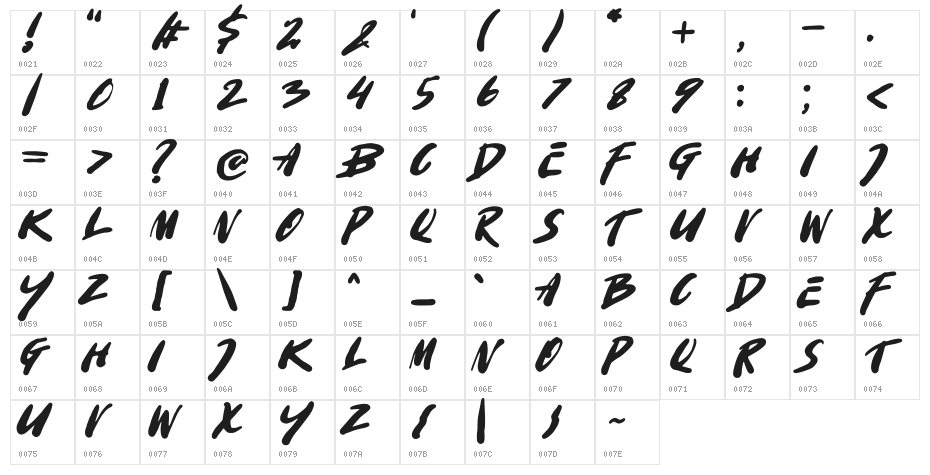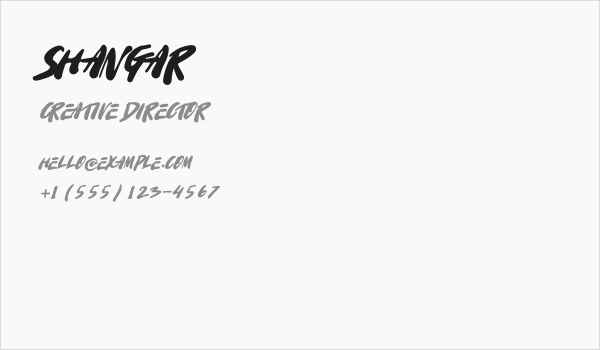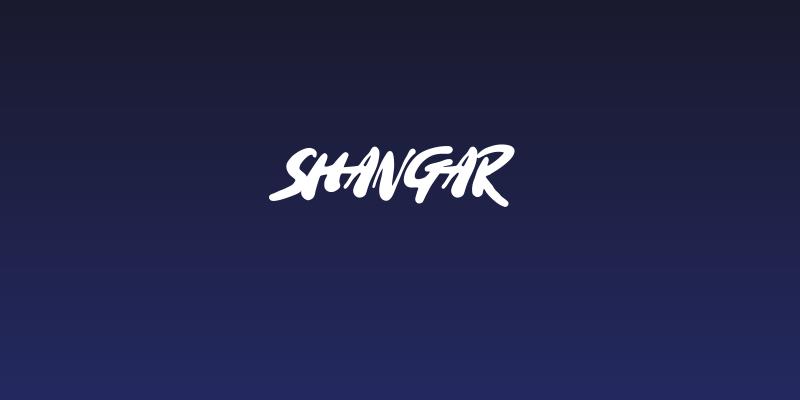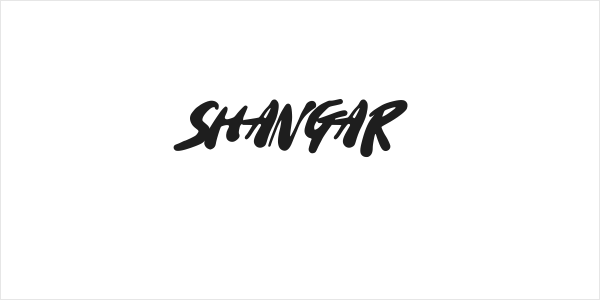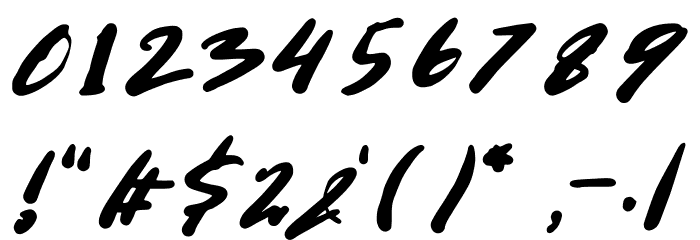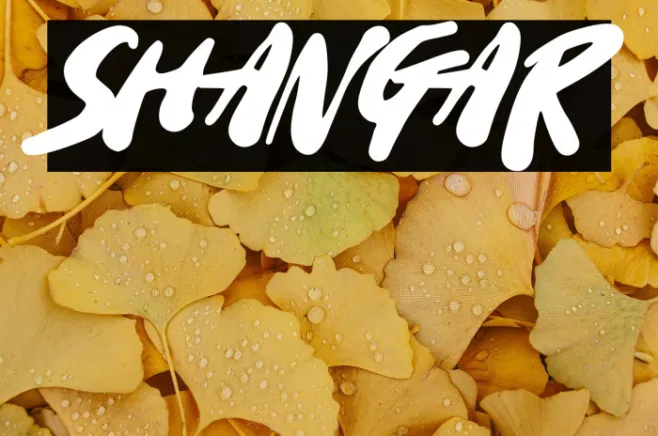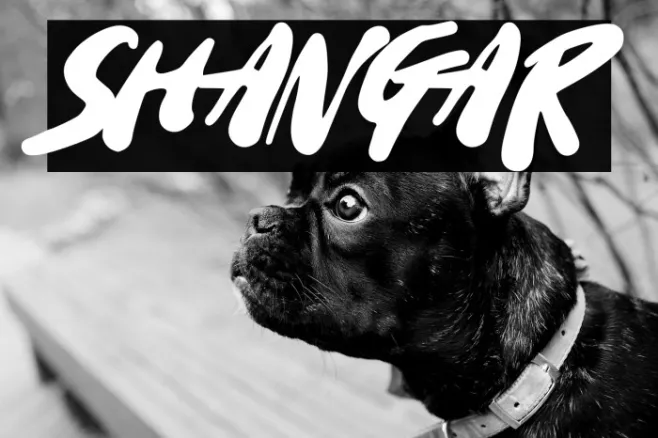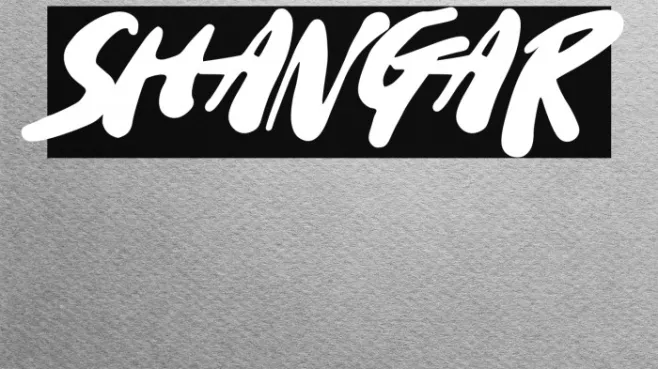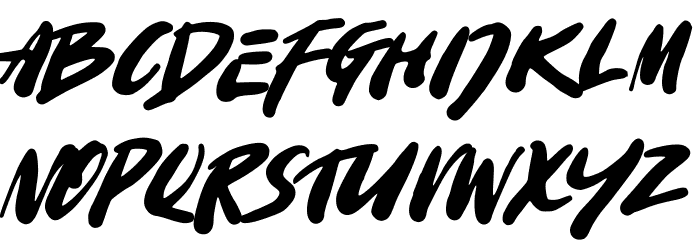
Shangar Font
Shangar Description
This font exudes a bold and dynamic energy, characterized by its thick, sweeping strokes and a sense of movement reminiscent of brush lettering. The uppercase and lowercase letters maintain a consistent flow, with each character seamlessly connecting to the next, creating a cohesive and fluid appearance. The numerals and special characters are equally expressive, maintaining the same boldness and style as the alphabet. This font is perfect for projects that require a strong, impactful presence, such as branding, posters, or any design that aims to capture attention with its lively and energetic style.
| Use Case | Logos, Headlines |
| Proposed Projects | Ideal for branding, posters, and designs needing a strong, impactful presence. |